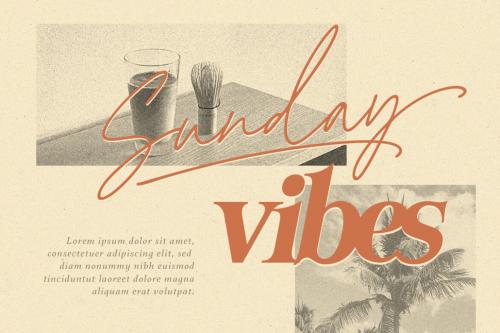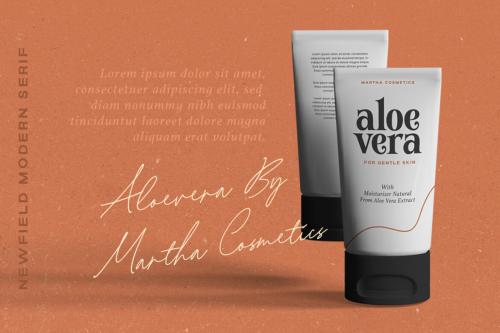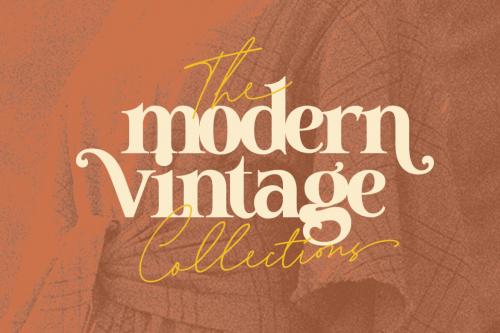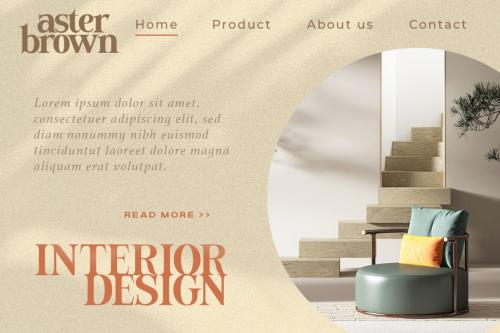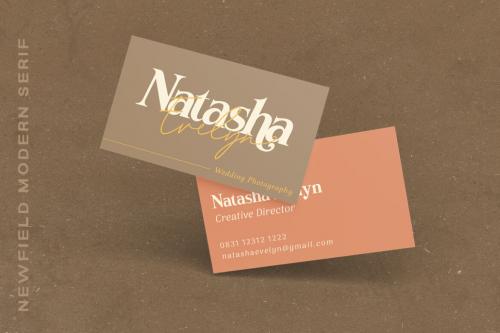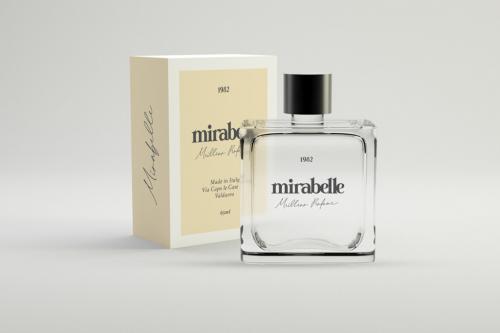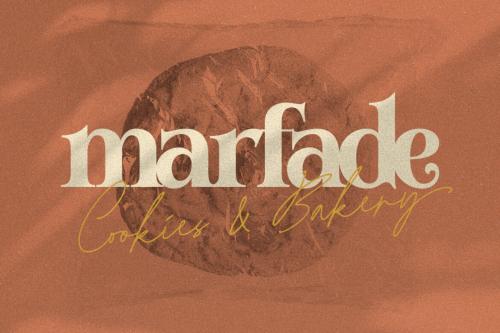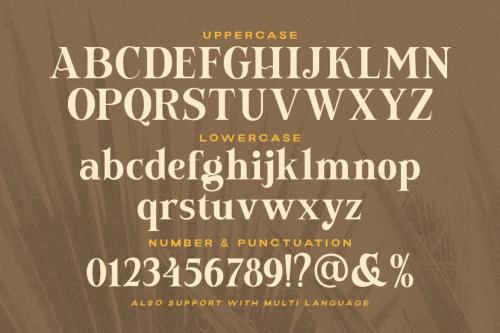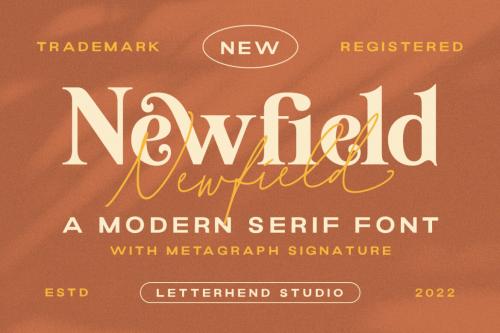
Newfield is a modern serif font with modern and elegant feel. It comes with Metagraph signature script. The serif combined with the natural script with signature style are the perfect match for you who needs a typeface for headline, logo, and the other various formal forms such as invitations, labels, logos, magazines, books, greeting u002F wedding cards, packaging, fashion, make up, stationery, novels, labels or any type of advertising purpose.